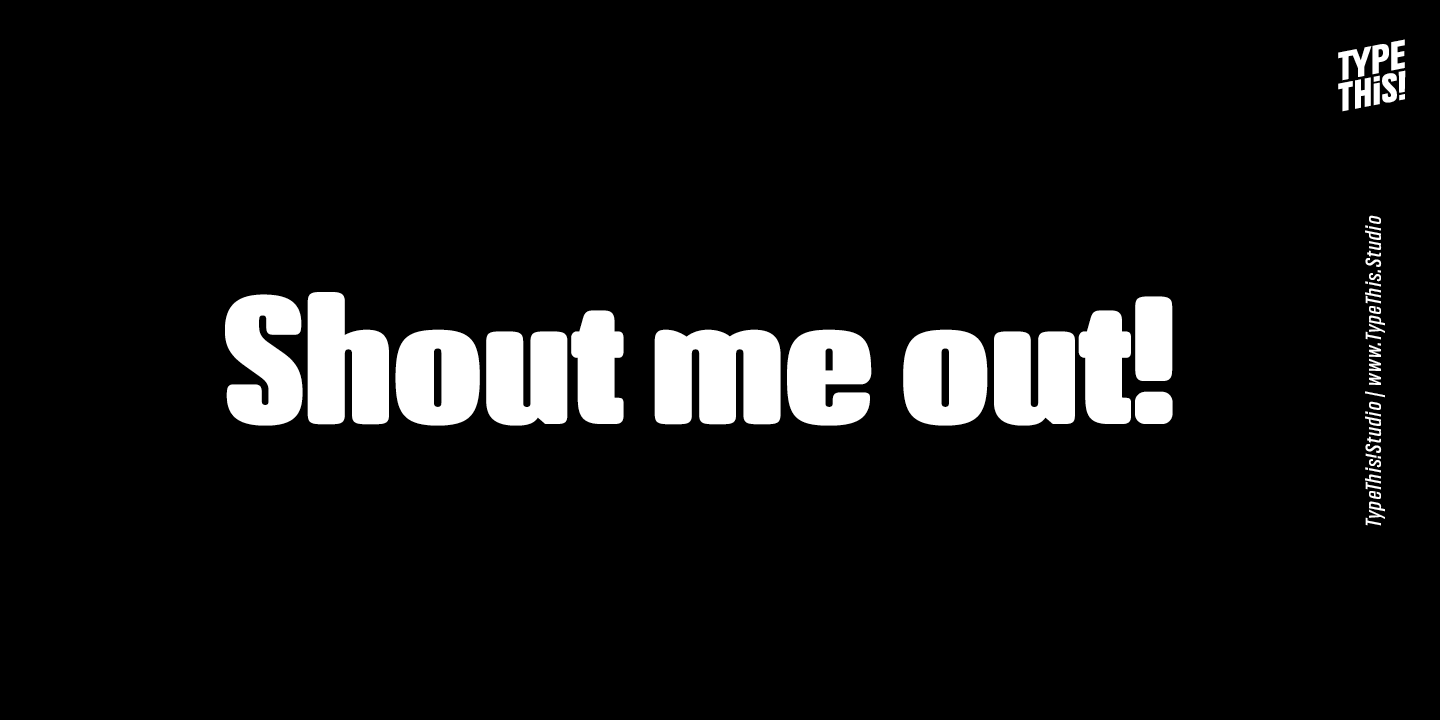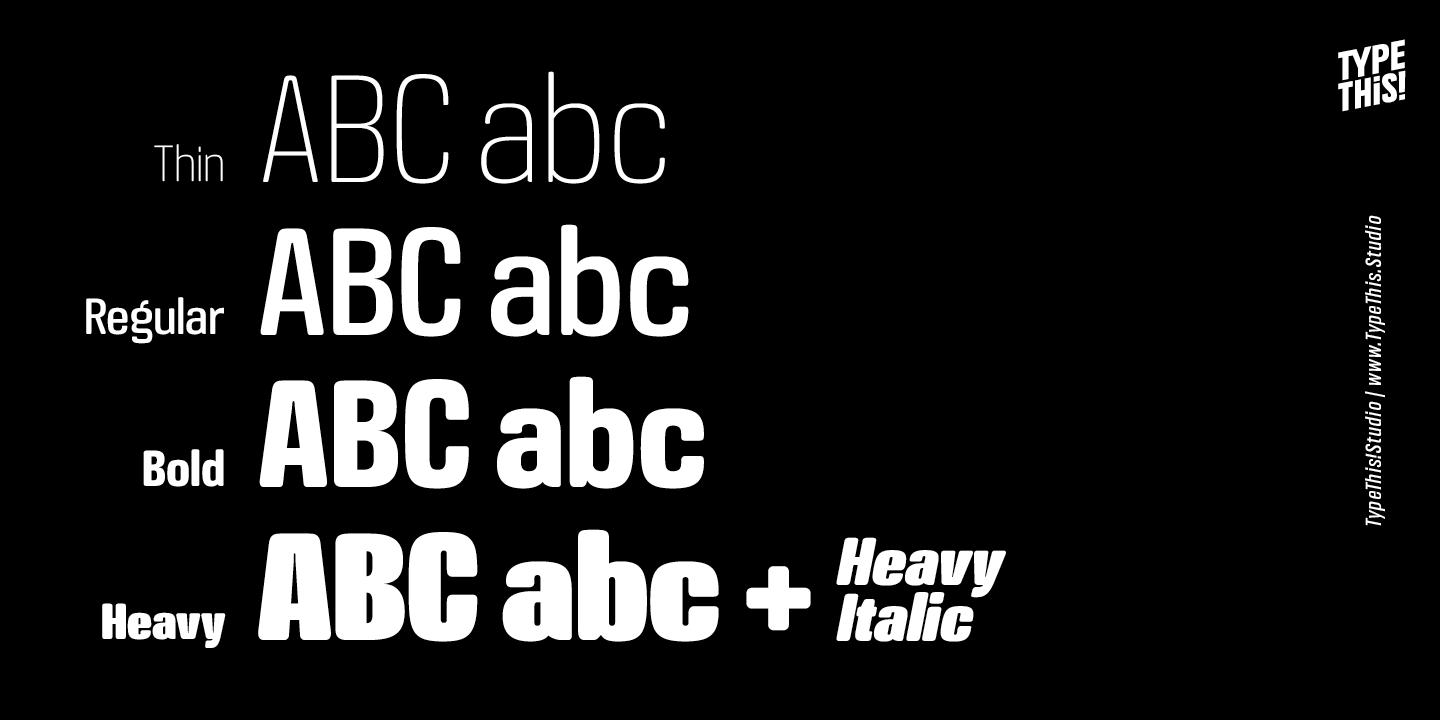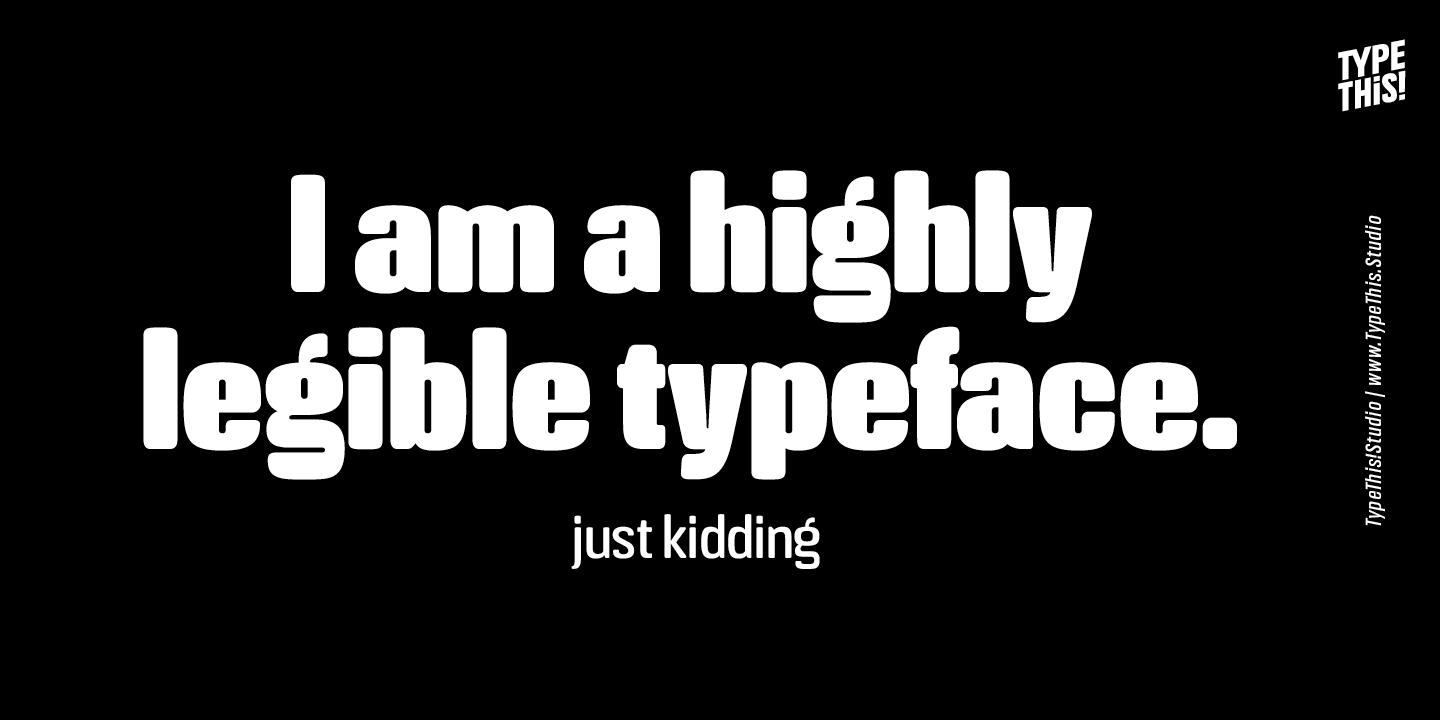
Crossfit is a new headline font for great sizes, such as big movie posters, advertising or editorials. Matching topics might be adventures, sports, strong nature and all kind of challenging life events. Its bold stability transforms your creation into…